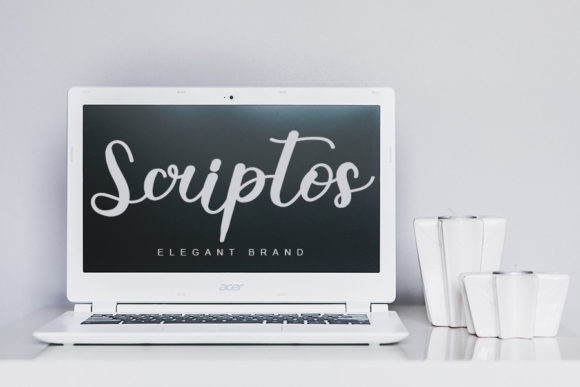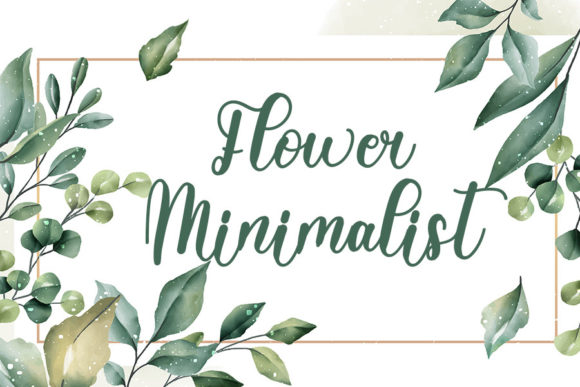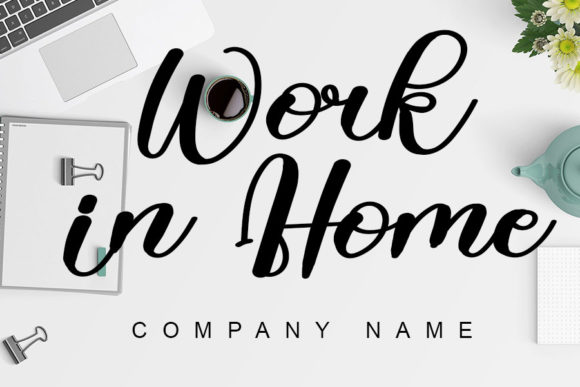
Introduction to Dahlya Font
Dahlya is an equally charming and elegant handwritten font.
It looks stunning on wedding invitations, thank you cards, quotes, greeting cards, logos, business cards, and any other design that requires a handwritten touch In addition, by using this font, your design will look more attractive than others and make you even more excited.
Dahlya Font offers exceptional quality and versatility, making it a valuable addition to your design toolkit. Whether you’re creating for personal projects or commercial use, Dahlya Font delivers professional results.